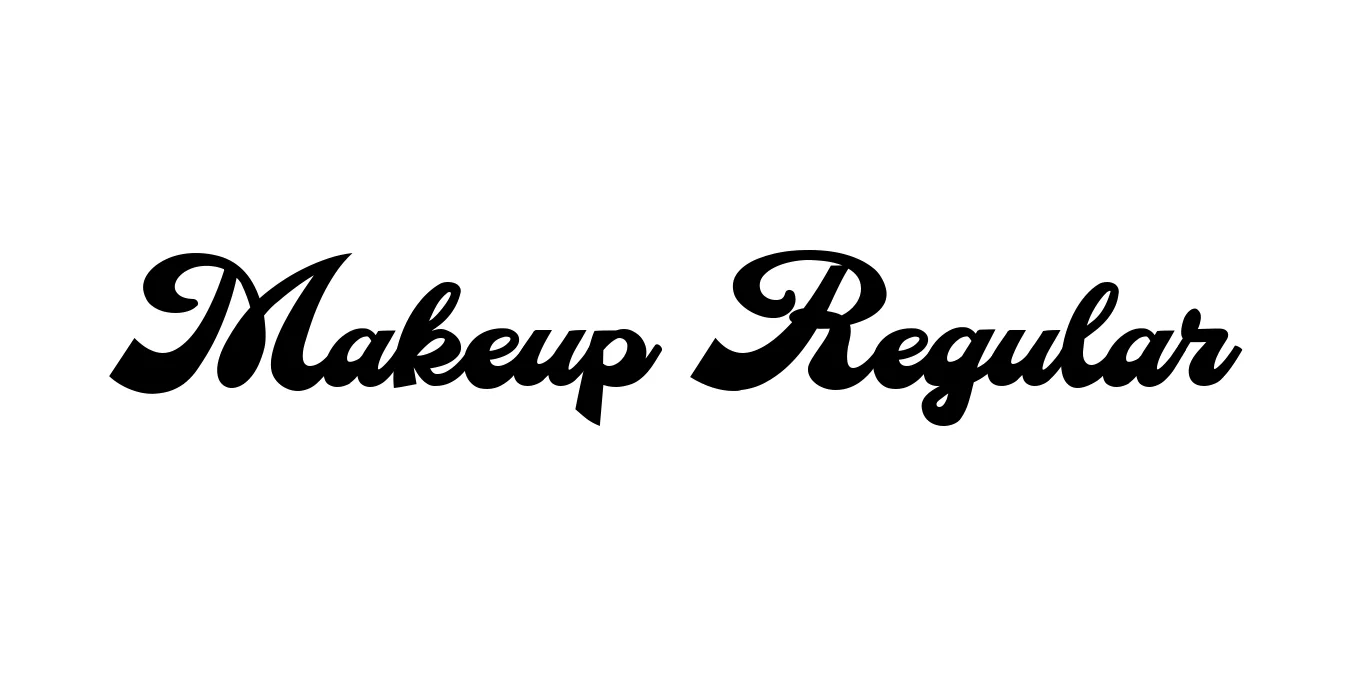
Makeup Regular
Designed by Billy Argel
| Category | Script / Calligraphic |
| Designer | Billy Argel |
Makeup Regular was conceived as a stylistic tribute to the fluid, high-contrast lettering often found in the high-end cosmetic and fashion industries. Developed as a digital interpretation of brush-based calligraphy, the font aims to bridge the gap between spontaneous handwriting and polished commercial typography. Its origins are rooted in the glamour-focused design movements of the mid-20th century, meticulously digitized to retain the organic textures of hand-drawn strokes while ensuring functional consistency for modern screen and print environments.
From a technical standpoint, Makeup Regular features a rhythmic flow characterized by dramatic variations in stroke width, effectively mimicking the natural pressure of a flexible nib or cosmetic brush. The font maintains a moderate x-height that preserves legibility even amidst its decorative flourishes and looping ascenders. The letterforms are engineered with tight yet organic kerning pairs, ensuring the visual weight remains balanced across long-form display text. The terminals are soft and rounded, which, combined with its elegant descenders, creates a sophisticated vertical rhythm that works best when provided with ample line spacing.